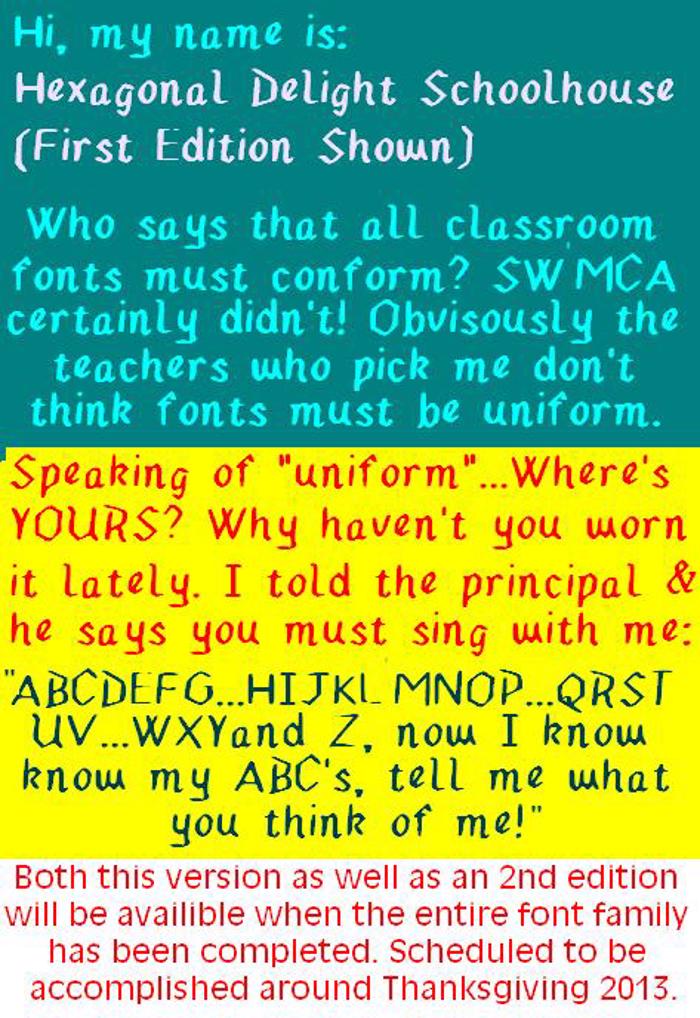
Hexagonal Delight Font
Schoolhouse Style
Hexagonal Delight Schoolhouse (First Edition) is a grammar school version of a SWMCA font by the same name created around 1982. The exact year was never recorded. The font was originally deemed experimental and did not get any use (not even by SWMCA) until after a 1986 major overhaul.
Hey educators and day care providers. Just between you and me. when the full font package comes out, there will be a 2nd version of this schoolhouse font along with the regular font...what I haven't told anyone yet is there will also be a version called "Hexagonal Delight REJECT", which will have the original characters BEFORE the font was redone in 1986 and rejected from the revised version.
(This is running late but still in the works -July 2015)